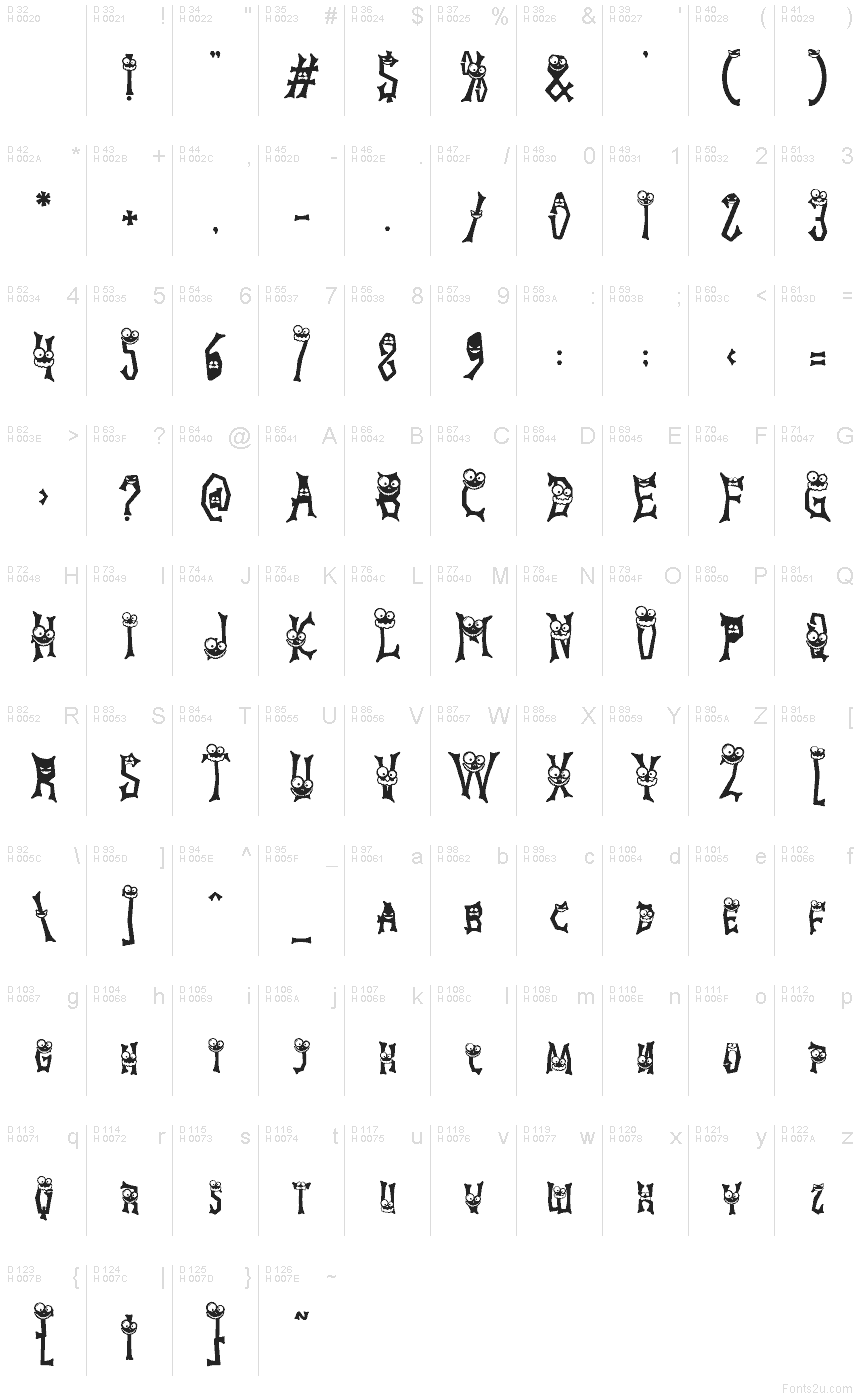
Ghostly Guffaws Scary
Ghostly Guffaws Scary font by PutraCetol Studio is a free Halloween display font. Part of the Ghostly Guffaws family, it trades on jittery strokes, rubbery curves, and cheeky goblin grins that peek from the letterforms. The texture feels hand-drawn and slightly inky, with tall, clawed silhouettes that read loud and playful rather than grim—great when you want spooky without the nightmare fuel.
Using Ghostly Guffaws Scary, headlines snap to attention on trick‑or‑treat posters, haunted house flyers, party invites, YouTube thumbnails, pumpkin‑patch signage, and social promos. This free font shines in big sizes where the googly personality can breathe; pair it with a clean geometric sans for body copy to keep things readable and let the mischief take center stage.